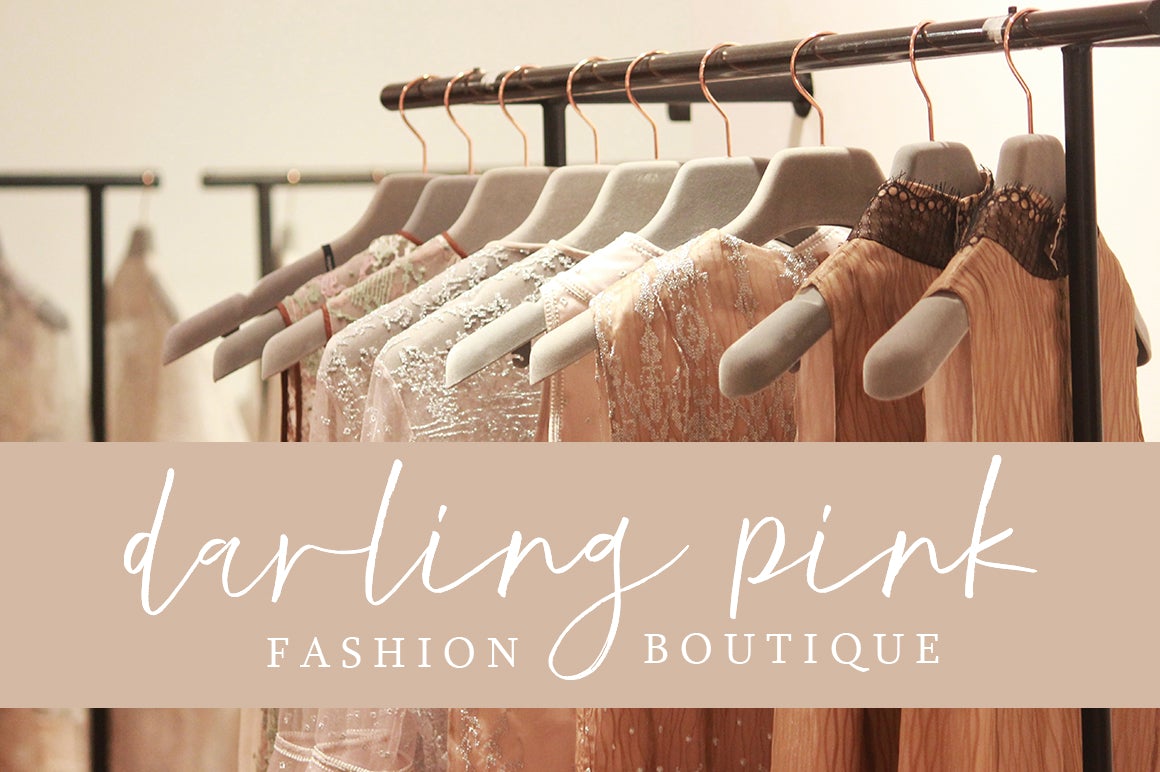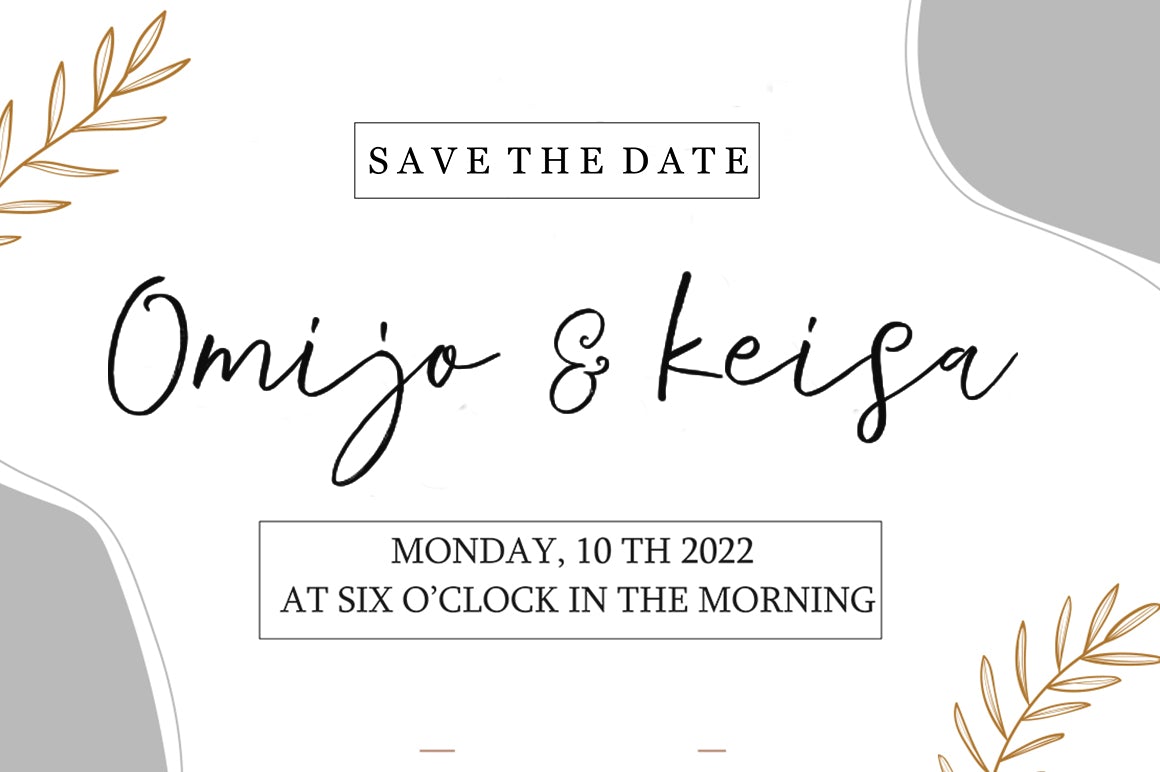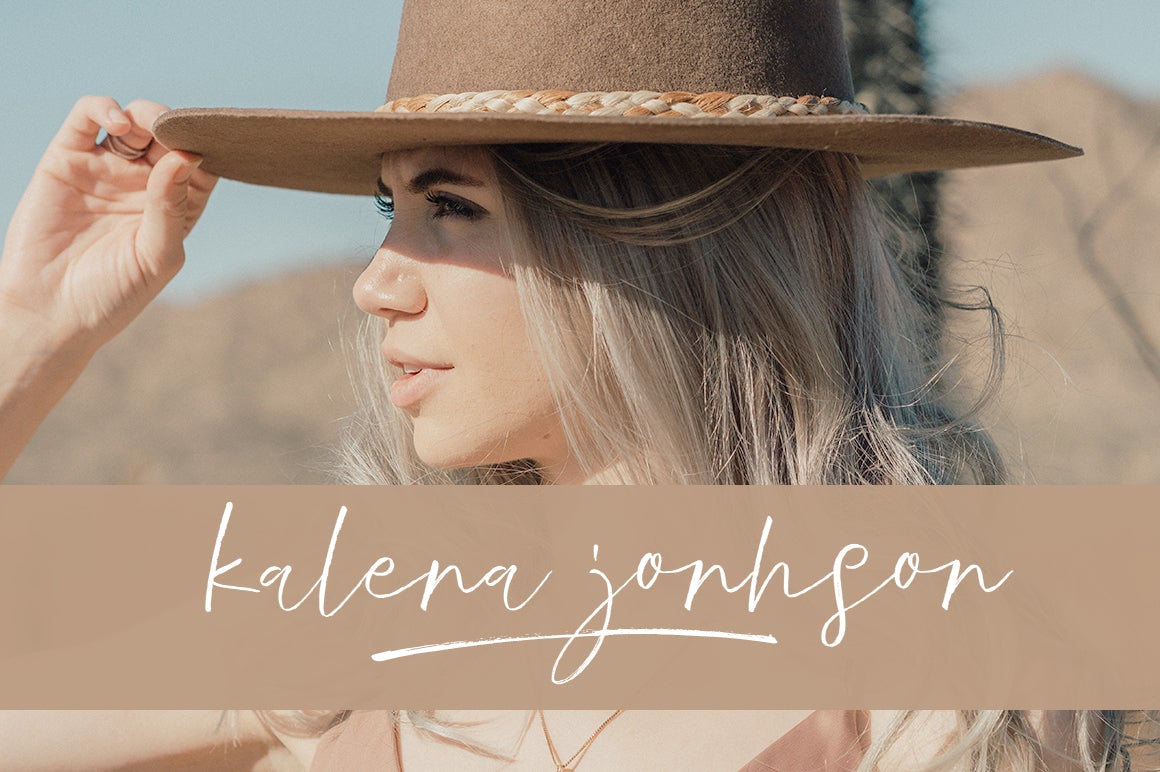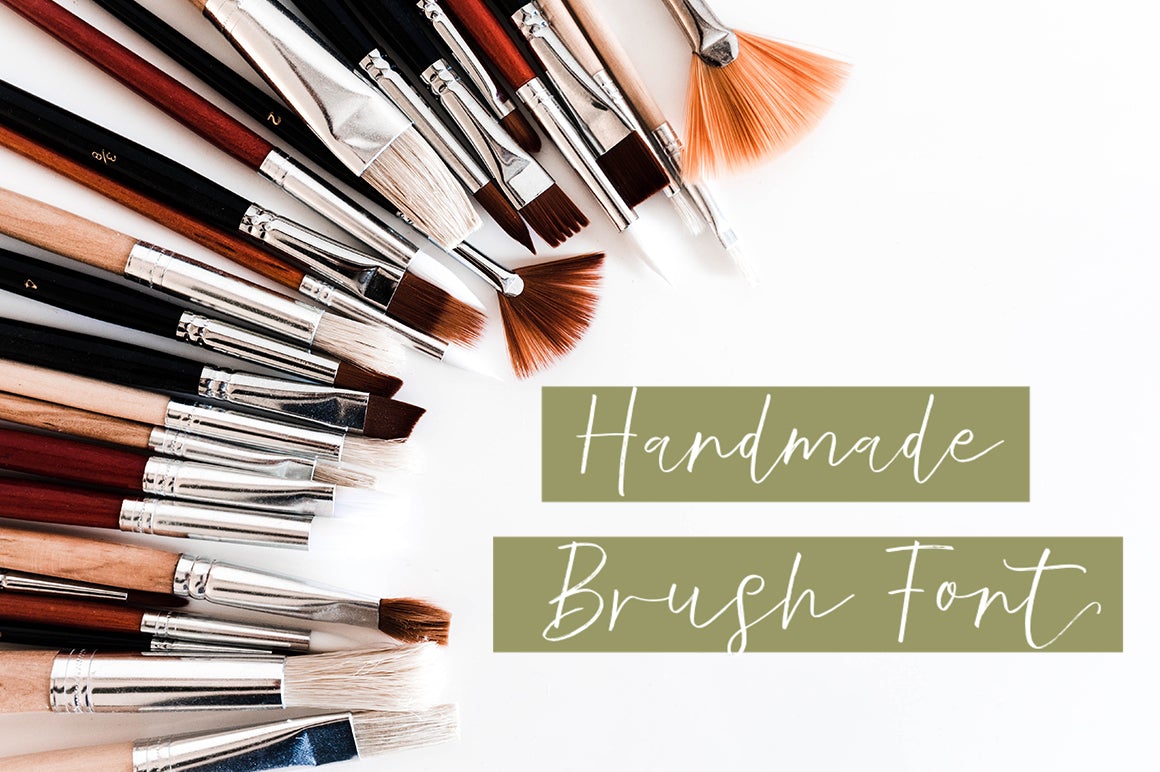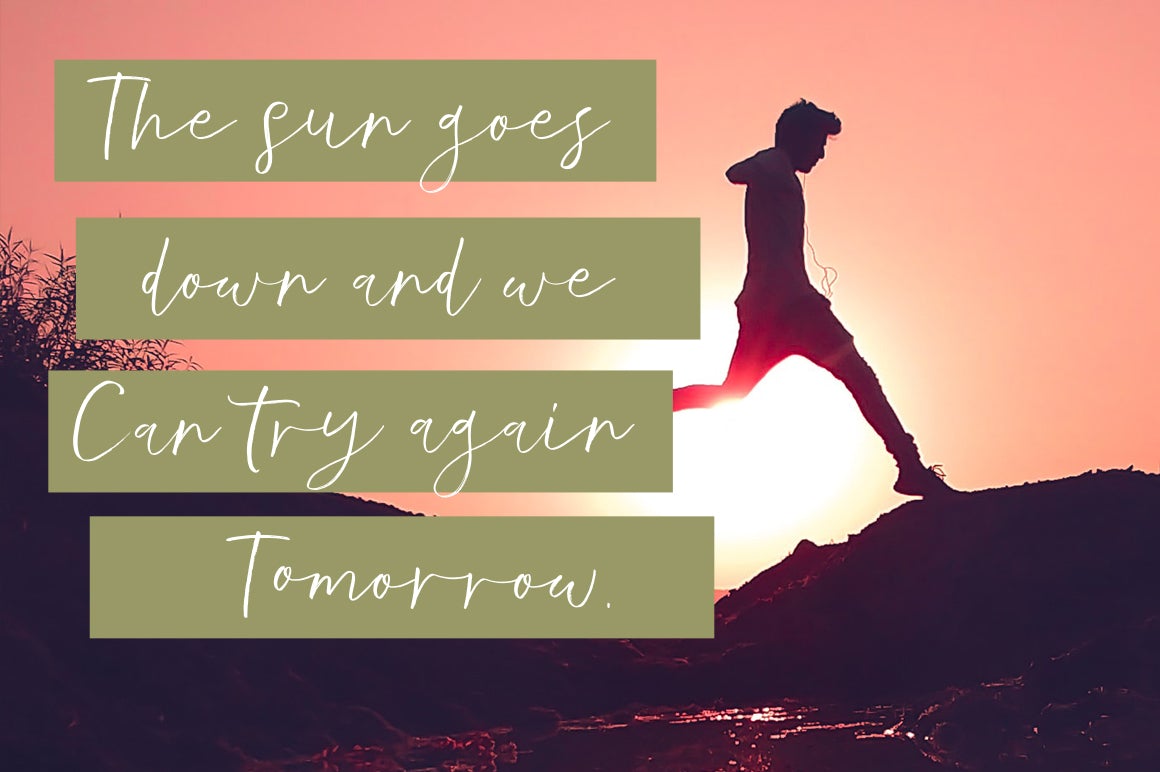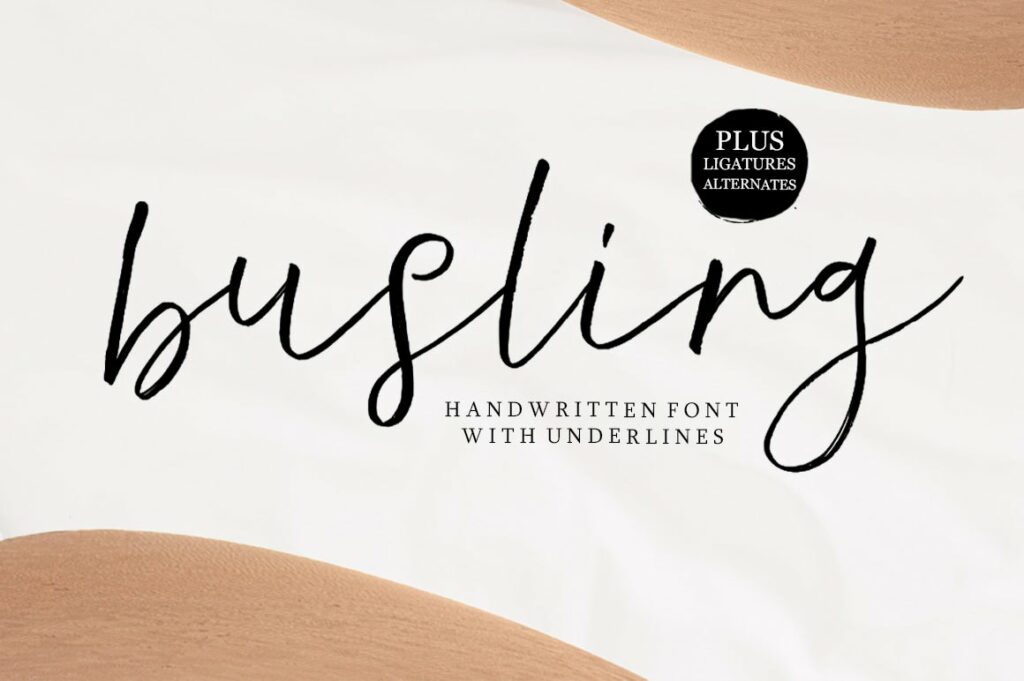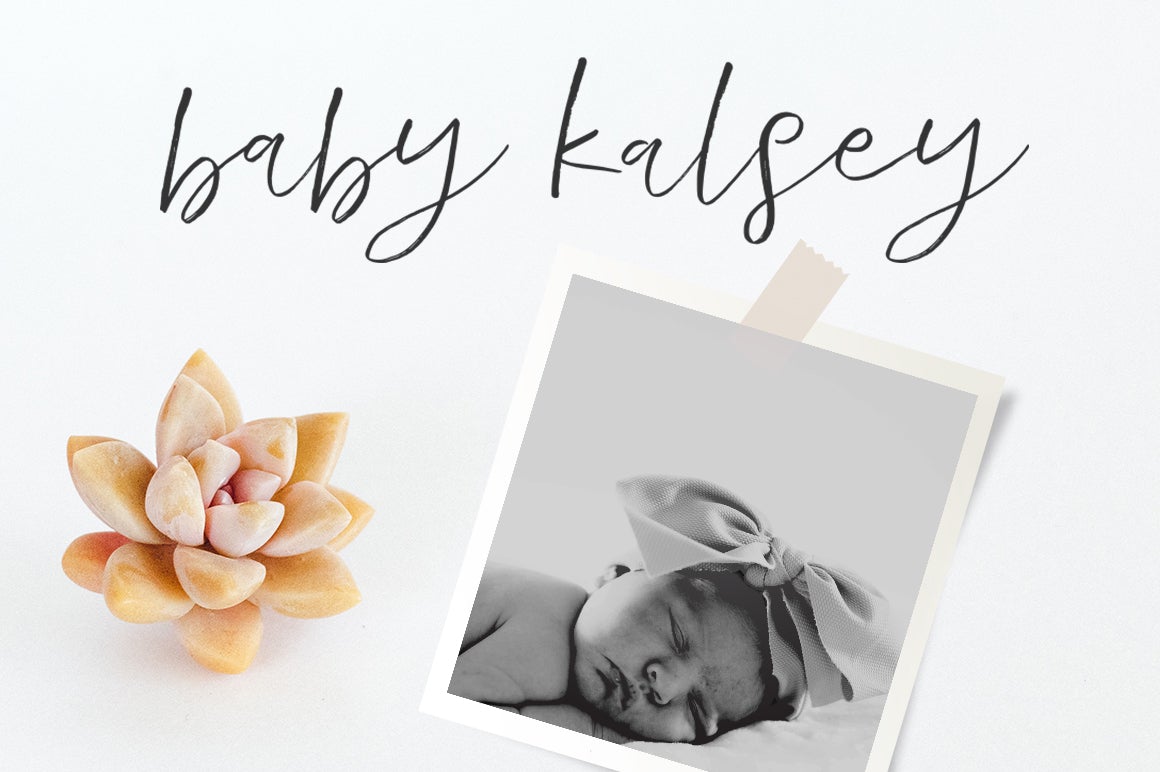
Busling Script
About Busling Script
Busling Font is a hand brushed font made with brush and ink. This typeface is ideal for use in bold watercolor designs or handwritten styles, such as blog titles, posters, wedding elements, t-shirts, clothing, book covers, business cards, greeting cards, branding, merchandise, etc. Contains full set: Uppercase Lowercase alternative Ligature Punctuation number multilingual support. And also Busling Alternates and Underlines, working in sync with Busling Regular to create incredible typographic creations. Get inspired by the preview above. How to access all alternative characters, using the Windows Character Map with Photoshop: https://www.youtube.com/watch?v=Go9vacoYmBw How to access all alternative characters using Adobe Illustrator: https://www.youtube.com/watch?v=XzwjMkbB-wQ Thank you!